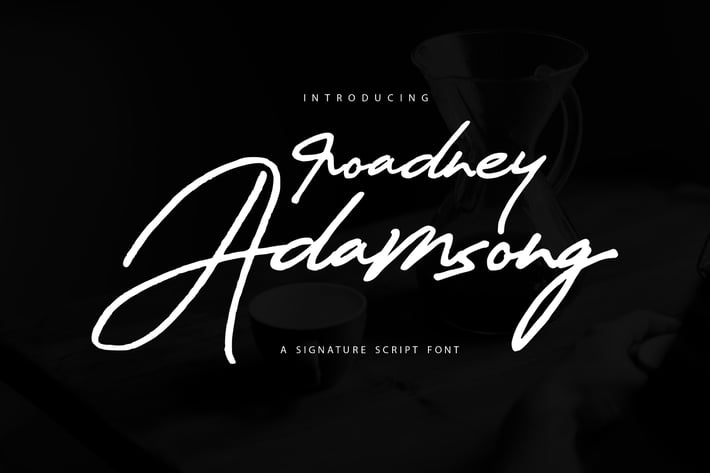
Roadney Adamsong | Signature Script Font
Roadney Adamsong | Signature Script Font with a calligraphy style, So beautiful on invitation like greeting cards, branding materials, business cards, quotes, posters, and more!